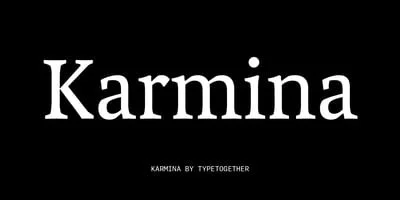
Karmina Font
Karmina Font is perfect for passionate projects including romantic book covers, love poetry publications, Valentine's Day campaigns, wedding invitation designs, beauty brand materials, intimate restaurant menus, feminine lifestyle magazines, and heartfelt greeting cards. This expressive typeface brings romantic warmth and emotional depth to any design project.
What makes Karmina Font exciting is its beautiful expression of love and passion through sensually curved letterforms that evoke deep emotional connections. The graceful character design features flowing lines and romantic proportions that capture the essence of intimate moments while maintaining elegant readability. This font delivers the perfect combination of sensuality and sophistication, creating an atmosphere of romance that touches hearts and inspires genuine feelings.
The Karmina Font family typically includes multiple weights with romantic styling, complete uppercase and lowercase alphabets, numerals, punctuation, and love-themed symbols. The design often features elegant curves and passionate characteristics that enhance the romantic aesthetic. Premium versions may include stylistic alternates, decorative flourishes, and additional romantic characters perfect for wedding and love-themed applications.
Whether you're designing for romance brands, wedding services, or intimate communications, Karmina Font delivers the heartfelt elegance that creates lasting emotional connections. Its passionate presence makes it ideal for memorable love stories and romantic messaging that speaks directly to the heart. The font's romantic heritage ensures it communicates affection and intimacy, making it perfect for any project requiring the tender aesthetic of true love and passionate expression.